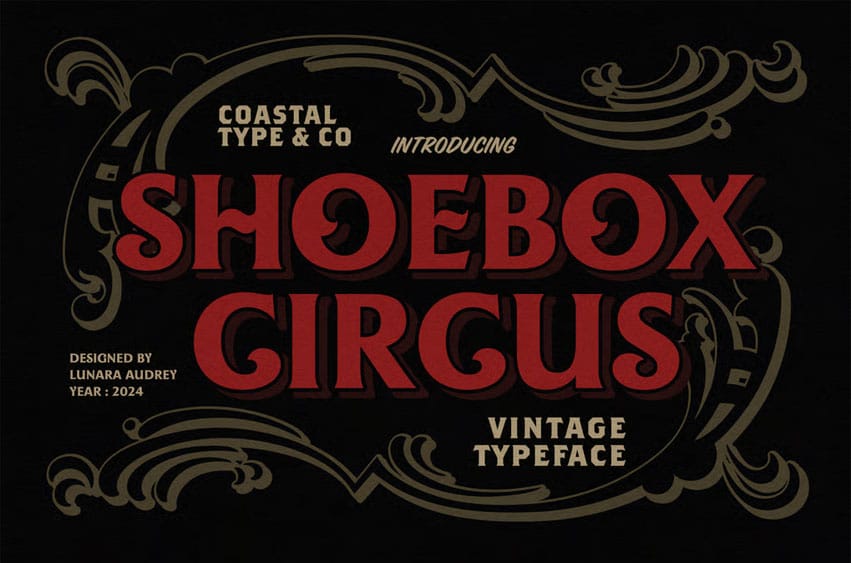
Shoebox Circus Font is the whimsical display typeface that captures the spirit of the circus in every letter. Inspired by vintage circus signage and playful lettering, this font is perfect for adding a touch of nostalgia and fun to your designs.
With its bold strokes and quirky flourishes, Shoebox Circus is ideal for posters, banners, and any project that needs to stand out from the crowd. Whether you’re promoting a circus event, a carnival, or just want to add some charm to your designs, this typeface has got you covered.